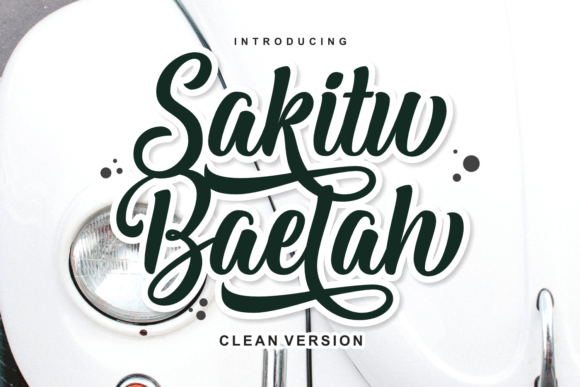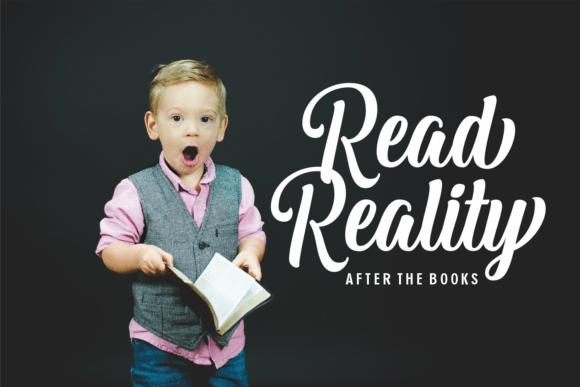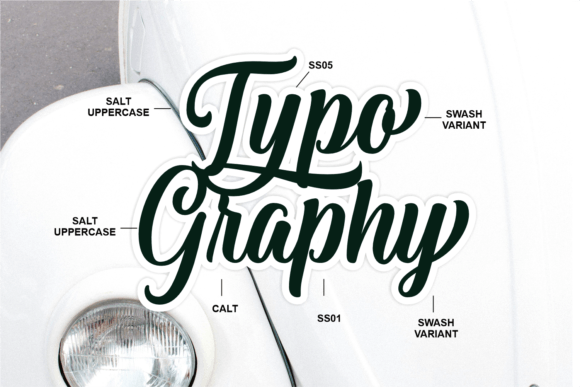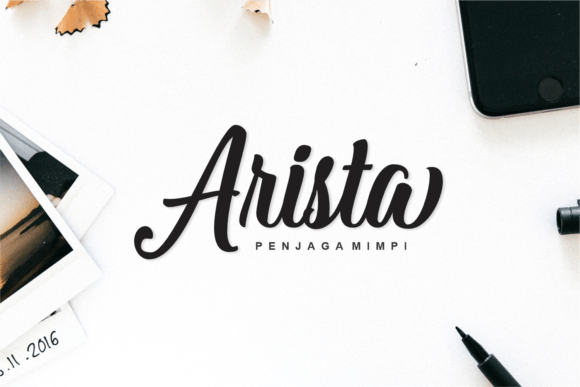
Sakitu Baelah Clean Font
About the Sakitu Baelah Clean Font
Introducing the Sakitu Baelah Clean Font, a beautifully crafted typeface designed to elevate your creative projects. Sakitu Baelah Clean is a clean version of the brush Sakitu Baelah font. It can convey a range of moods, from relaxed and friendly to artistic and eccentric. Making your message or artwork visually engaging and deeper in its impact, Sakitu Baelah is ideal for logos, quotes, product packaging, or anything that needs a typographic turbo-boost.
Sakitu Baelah Clean Font Usage Examples
Sakitu Baelah Clean Font Example